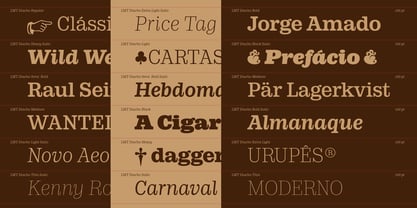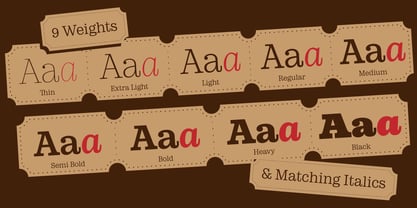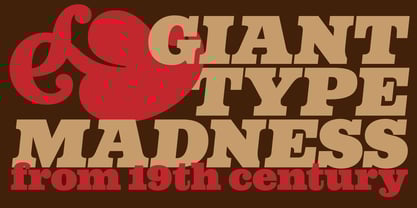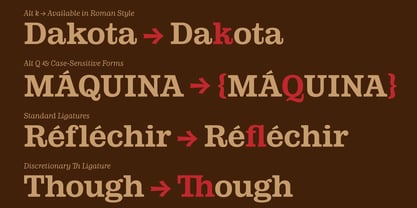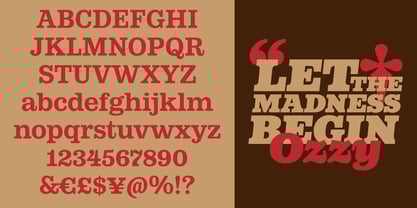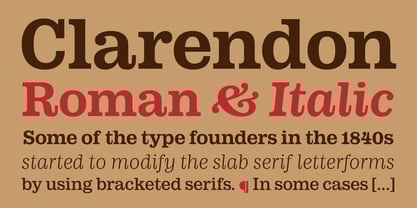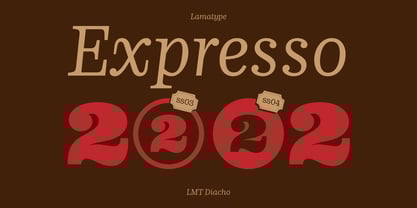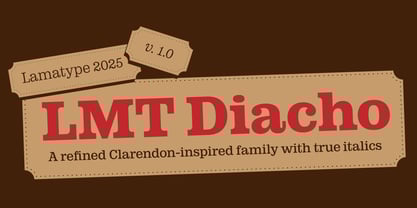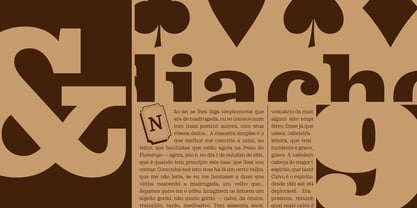
LMT Diacho
by Lamatype
The LMT Diacho Font Family was designed by Renan Bassan and published by Lamatype. LMT Diacho contains 18 styles and family package options. More about this family
LMT Diacho is a typeface family inspired by the classic and timeless Clarendon®. Its design features signature characteristics like ball terminals, bracketed serifs, and a tall x-height. With 655 glyphs, LMT Diacho offers extensive language support and includes OpenType features such as ligatures, easy access to alternates via stylistic sets, fractions, and case-sensitive forms - All across 9 weights (Thin to Black) with matching italics.
Designers: Renan Bassan
Foundry: Lamatype